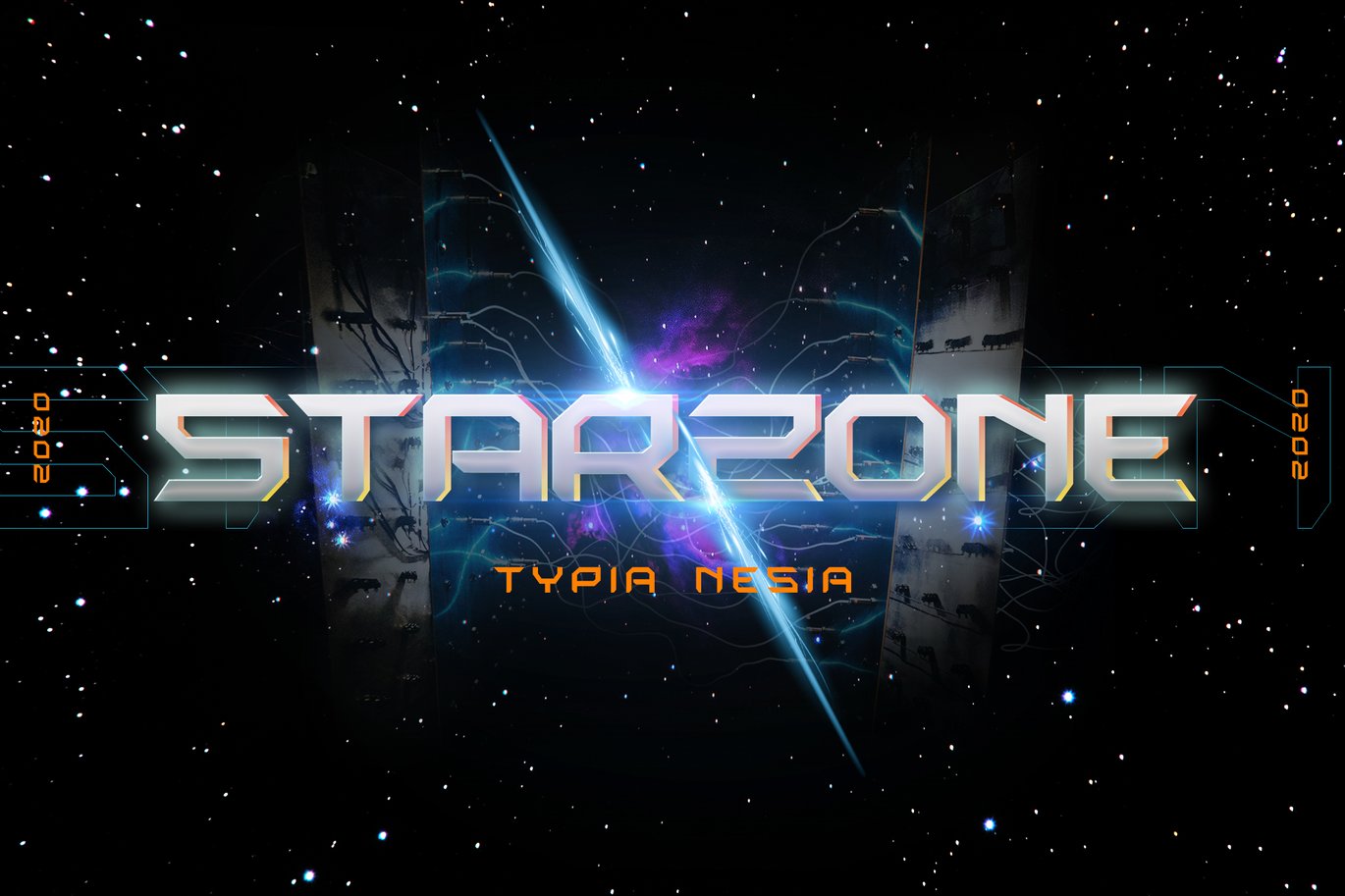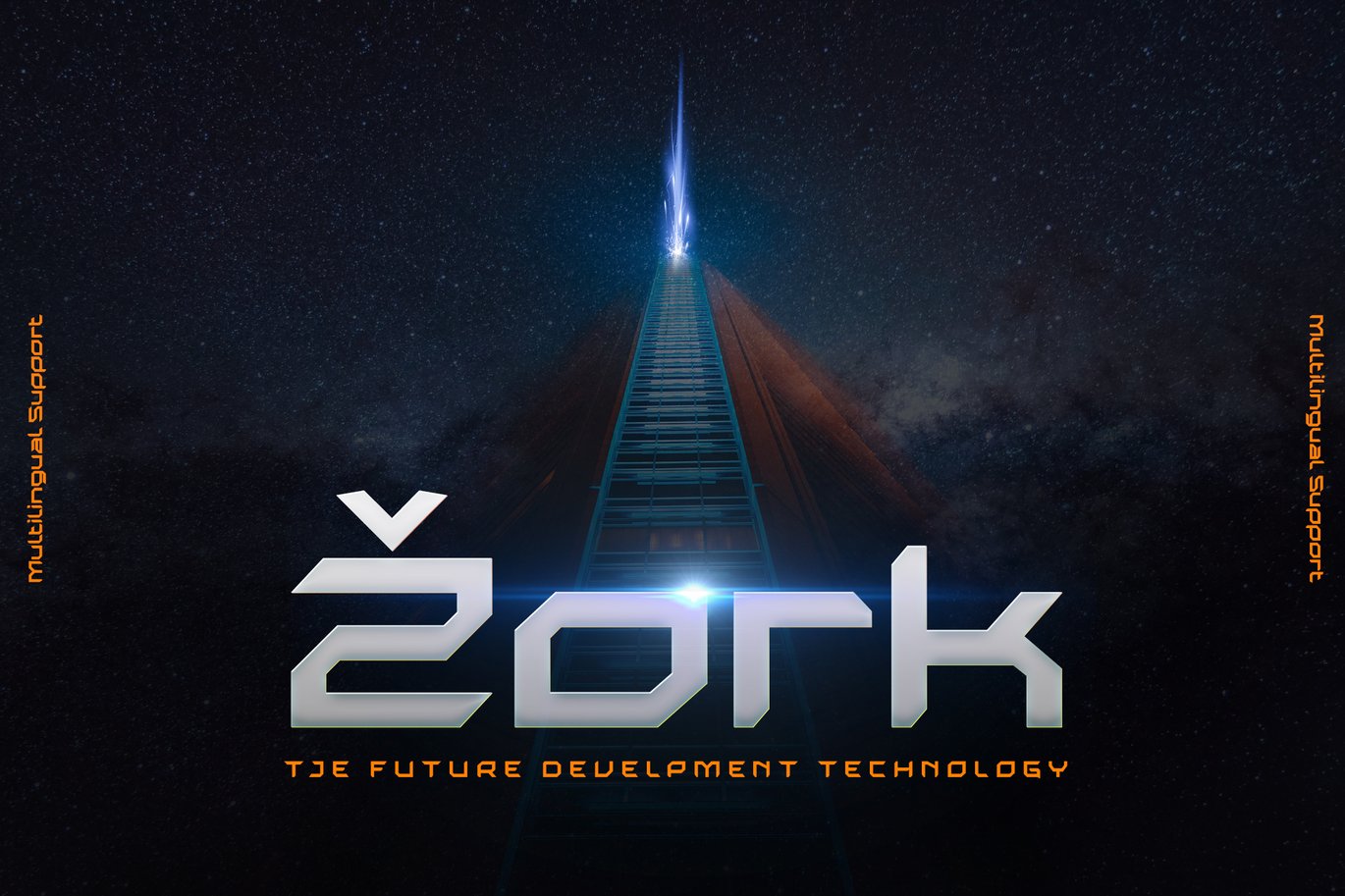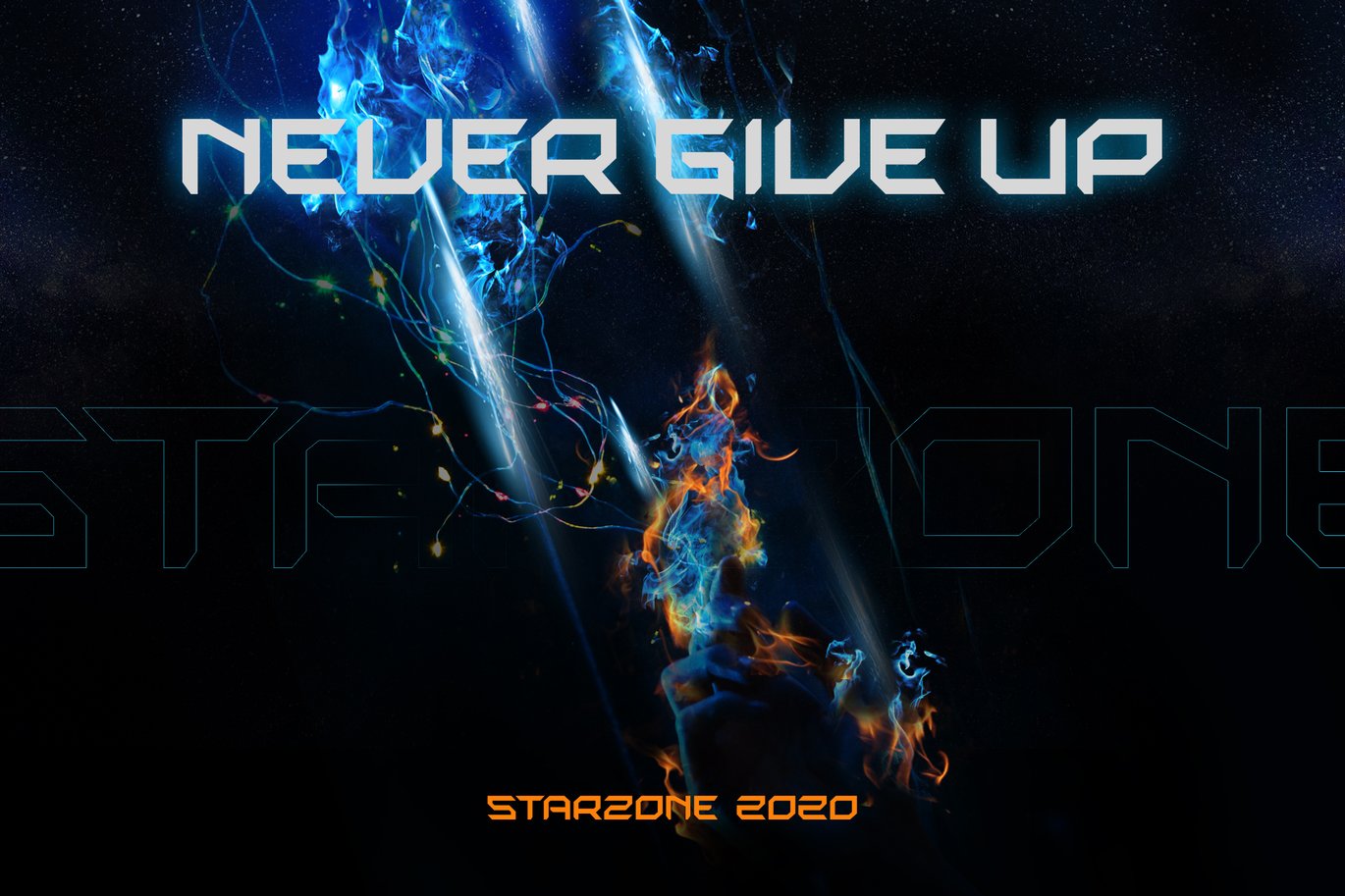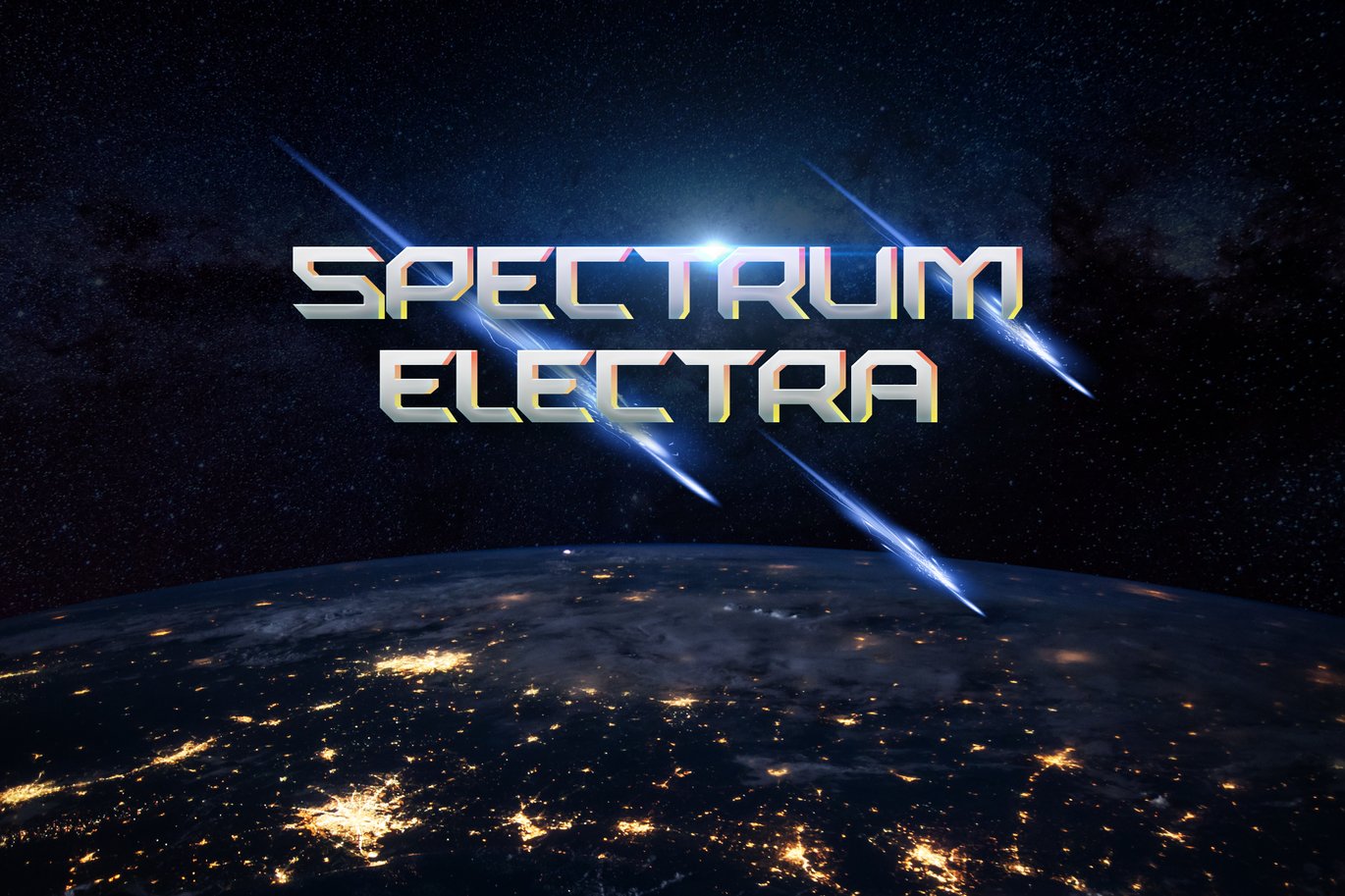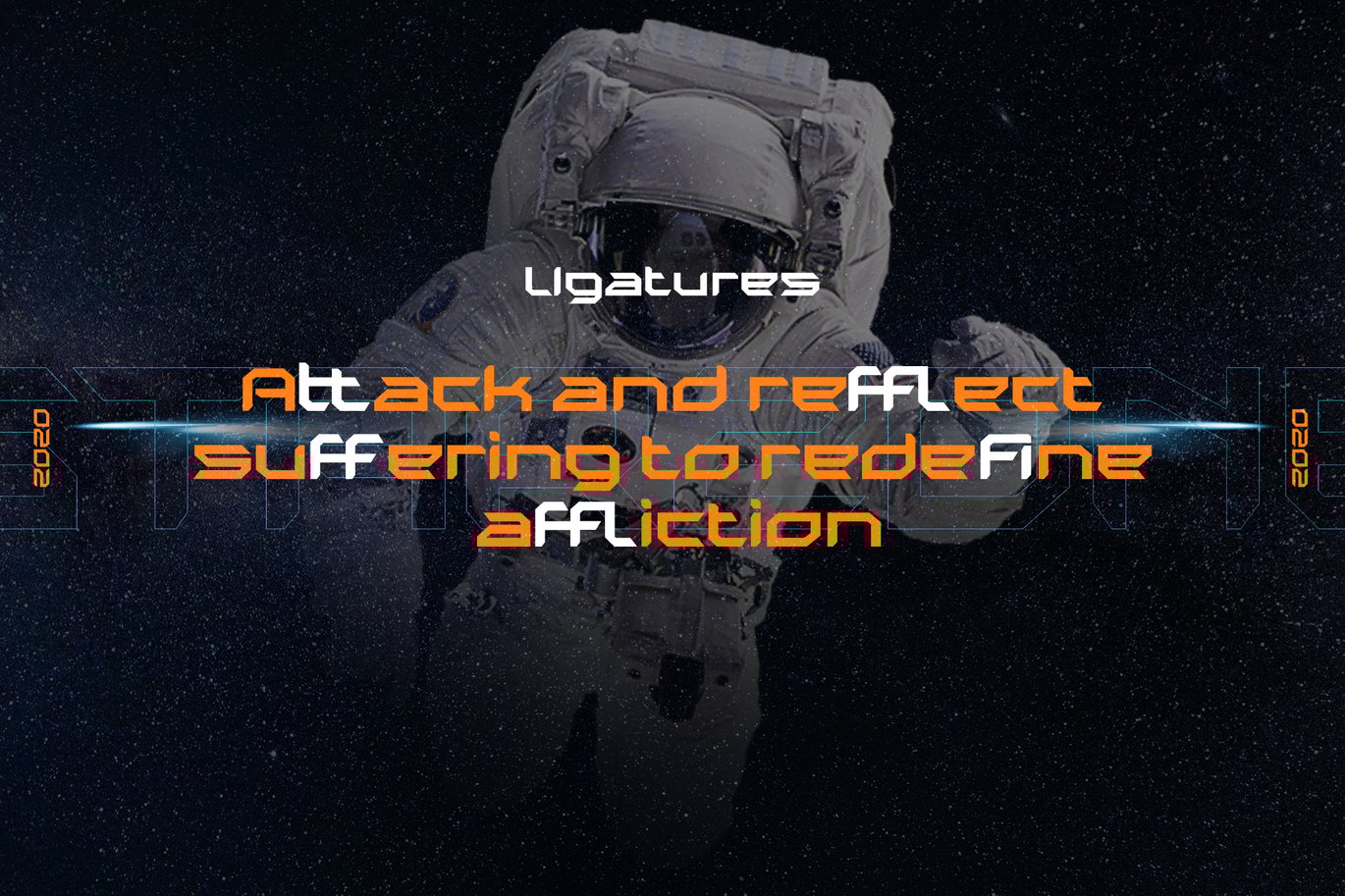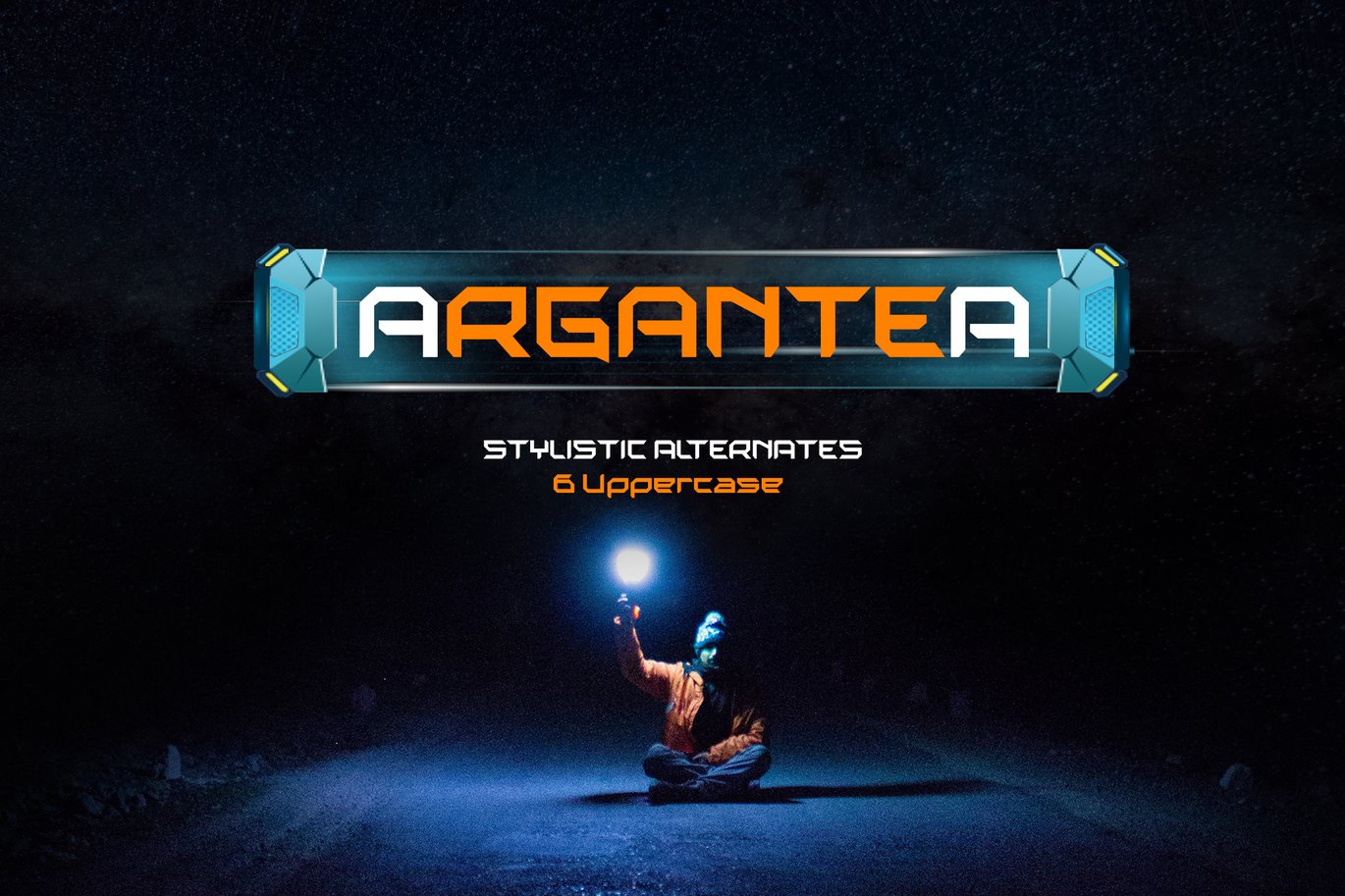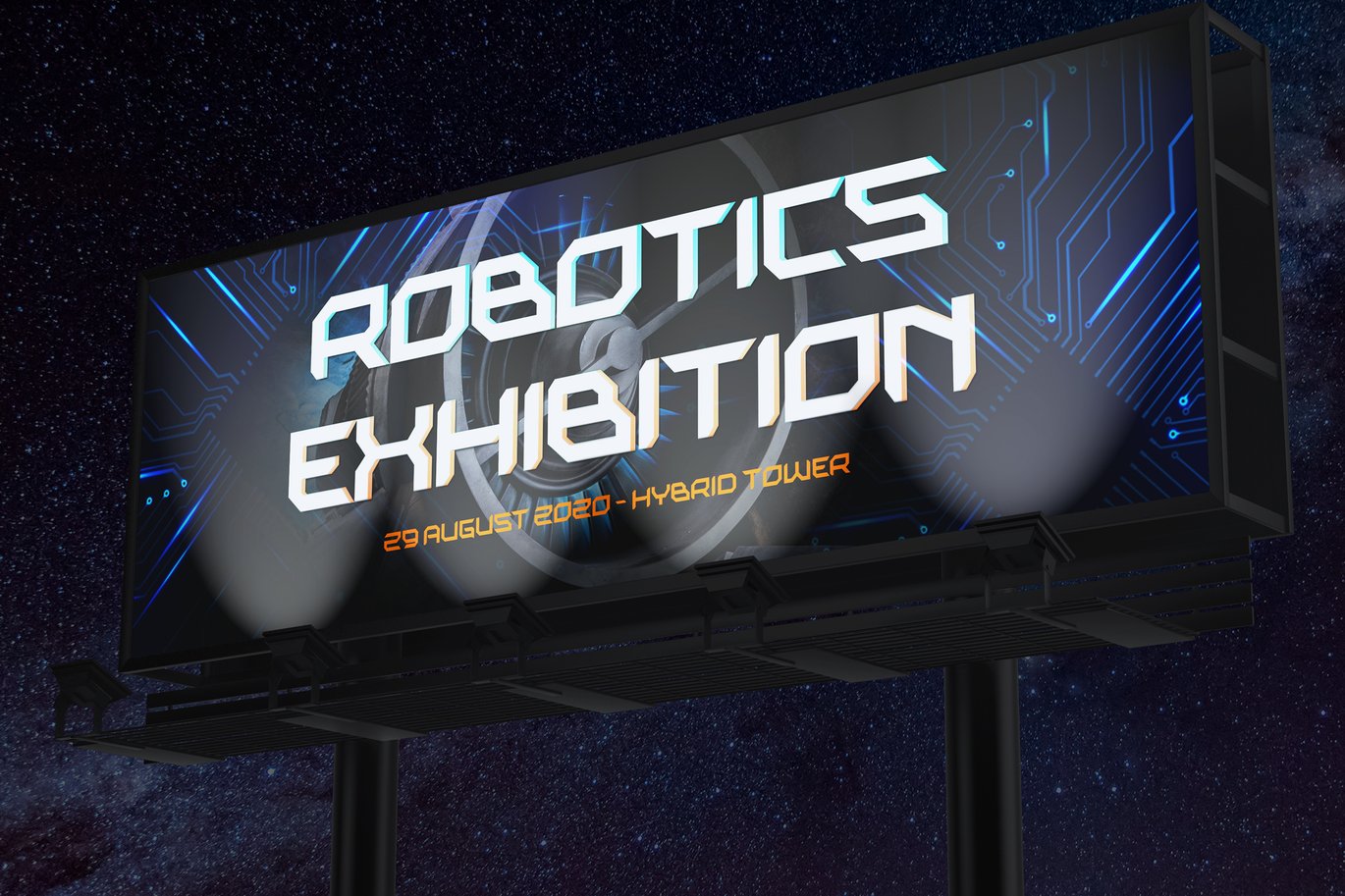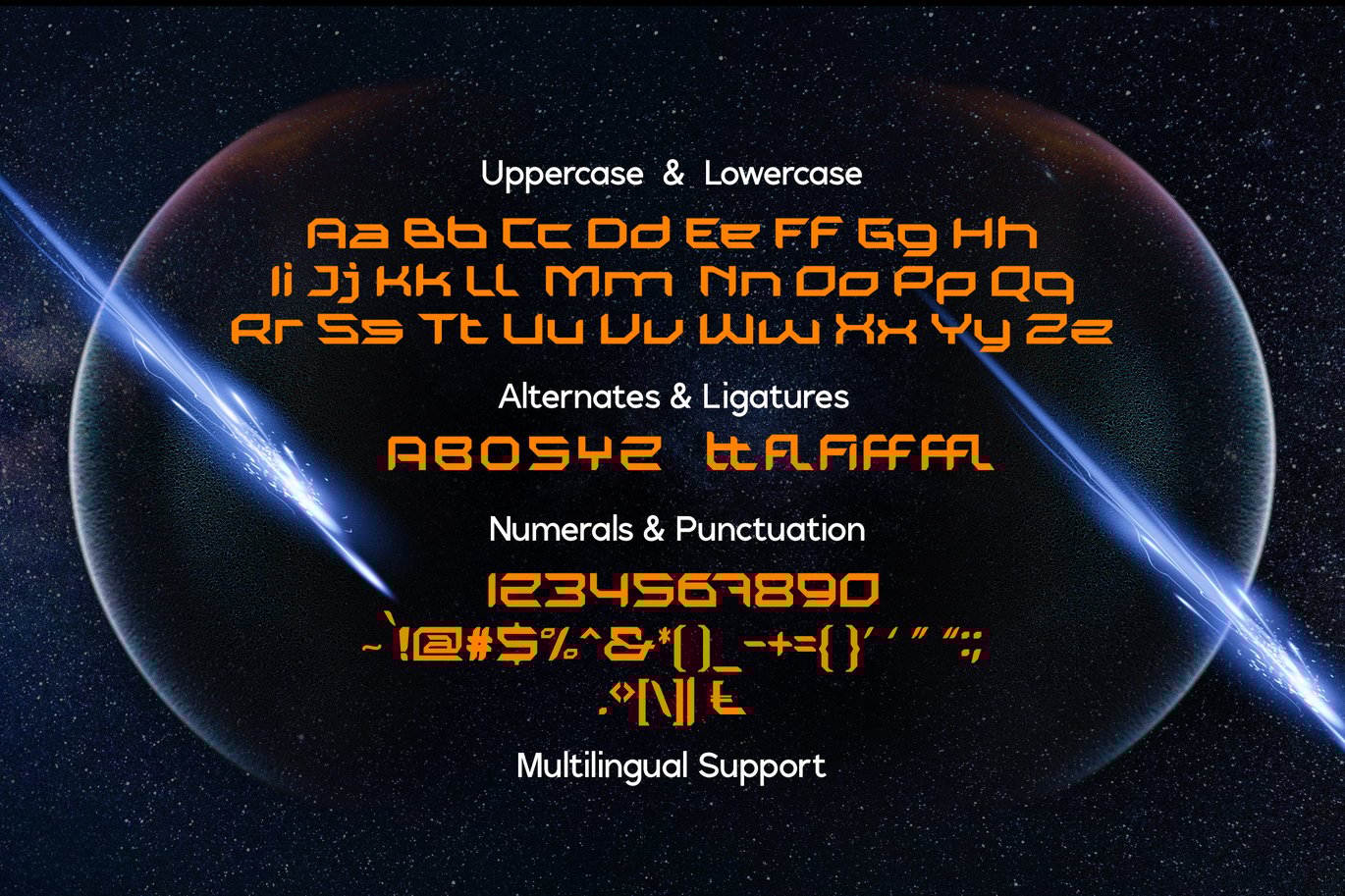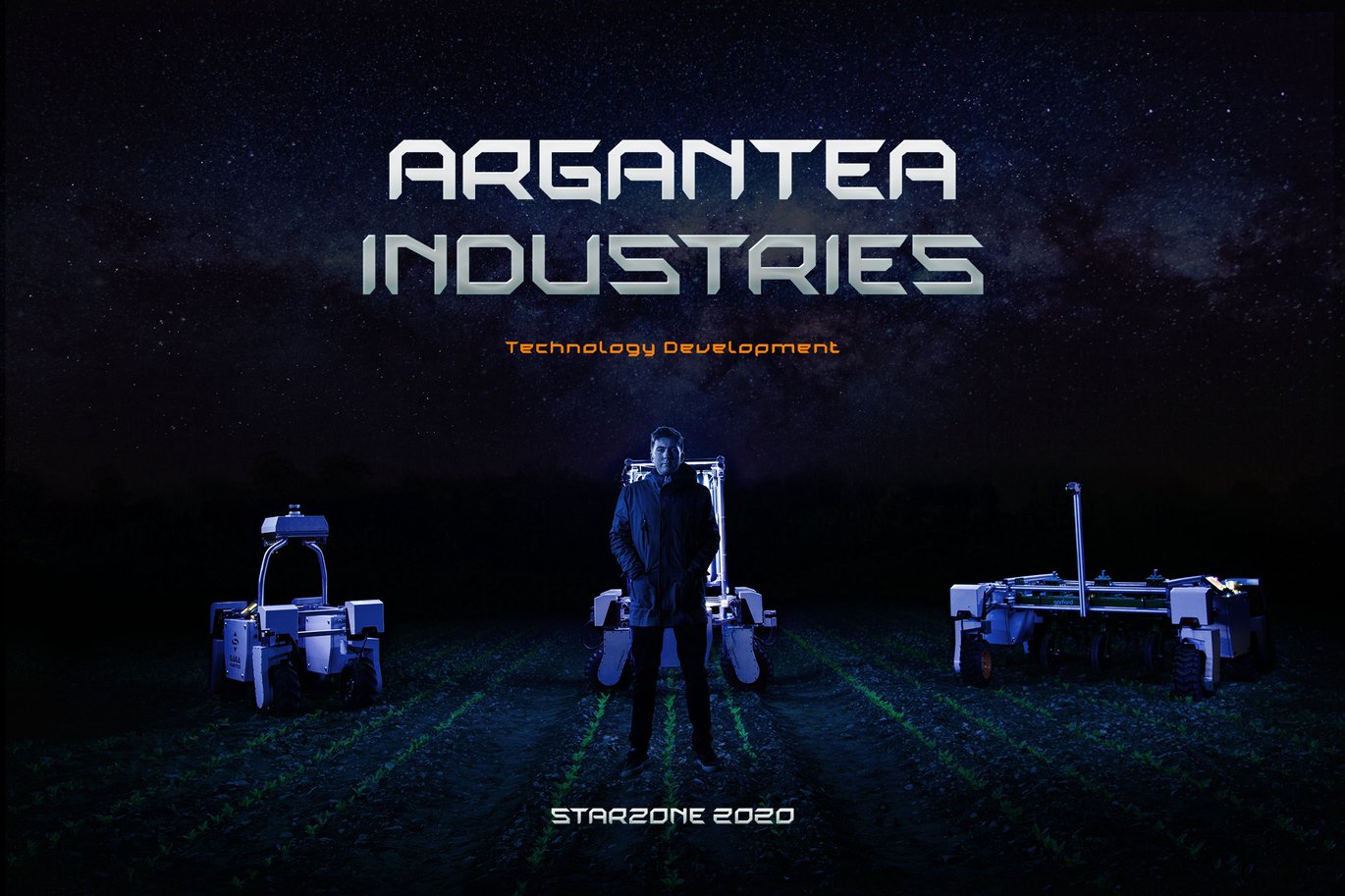
Starzone – SciFi Game Font
Starzone – SciFi Game – Robotic Futuristic Military Font
Starzone font can be used in different purposes: logo and branding, scifi poster, product packaging, invitations, advertising, sport apparel, game industry, movie and any futuristic typography design projects.